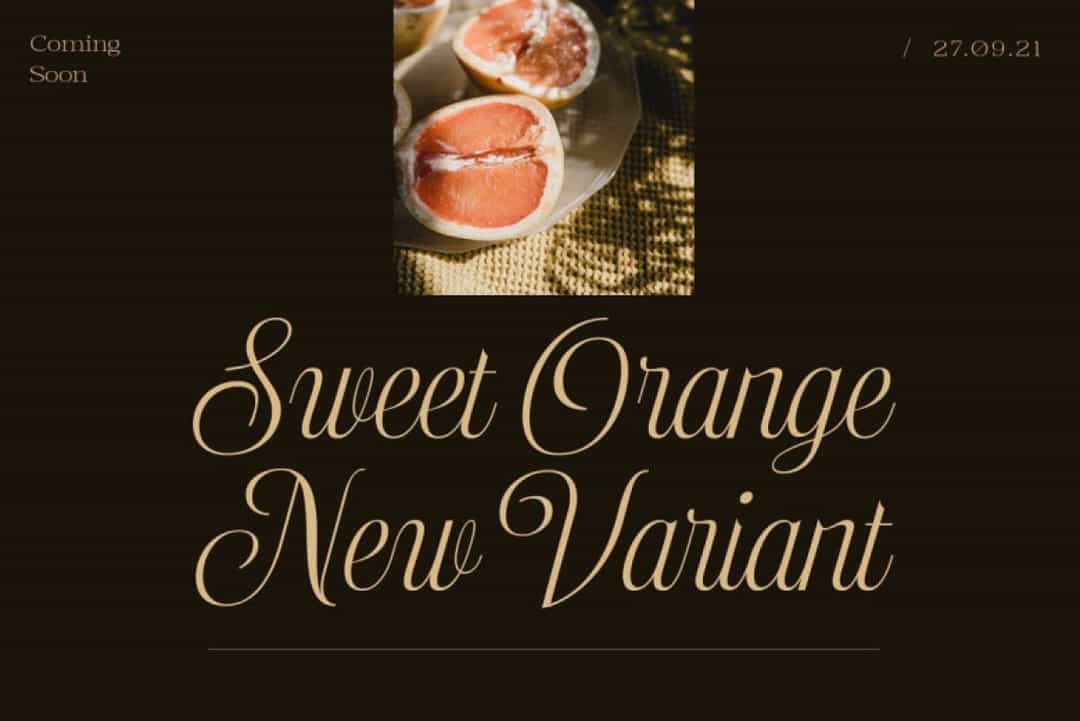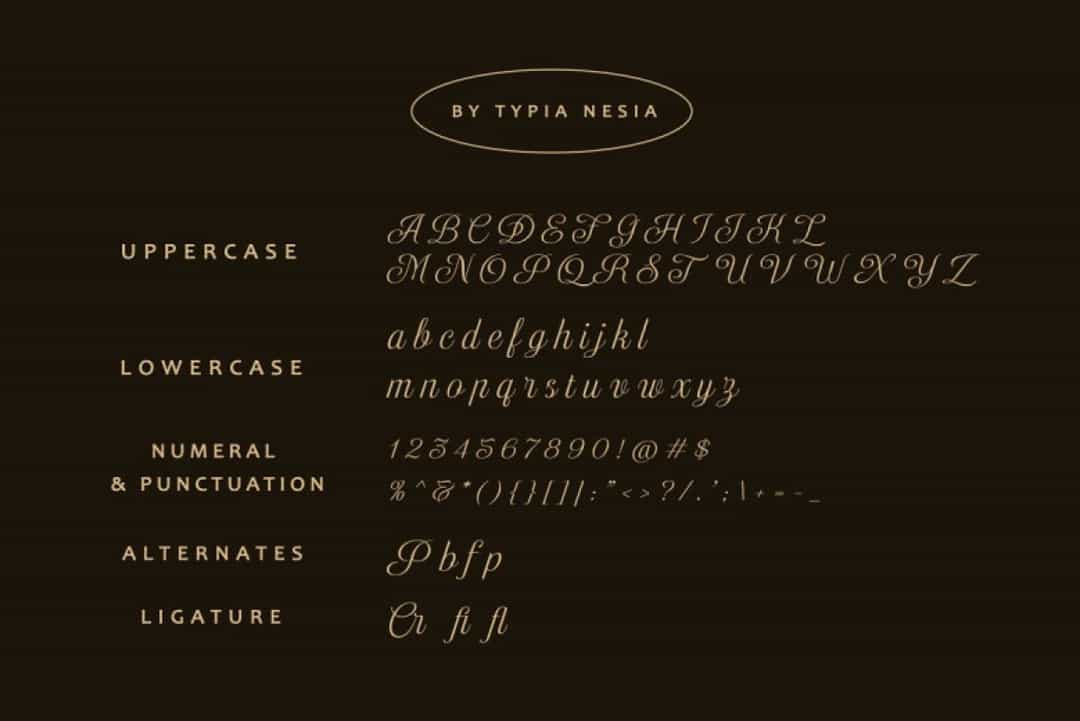
Delugia Script is an Elegant Copperplate Calligraphy Font with classic flow and elegance that’s ideal for wedding branding and royal designs, blogs, social media restaurants logos, invite cards or any project requiring calligraphy. We thank you and hope that you are enjoying Delugia Script – have fun creating!